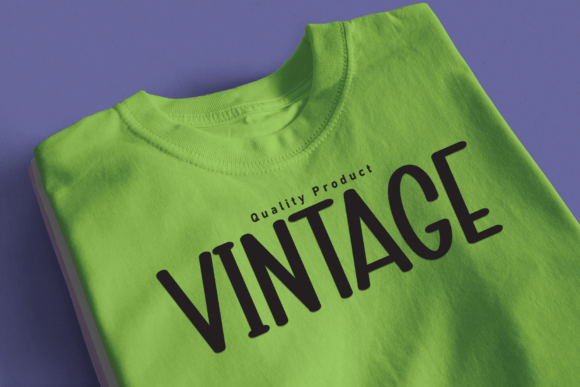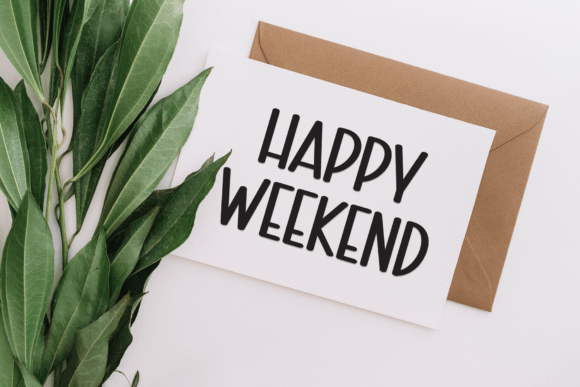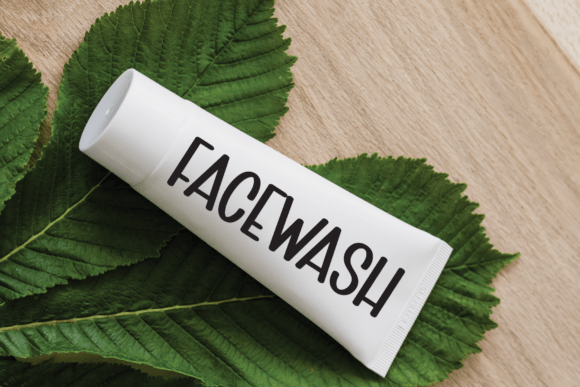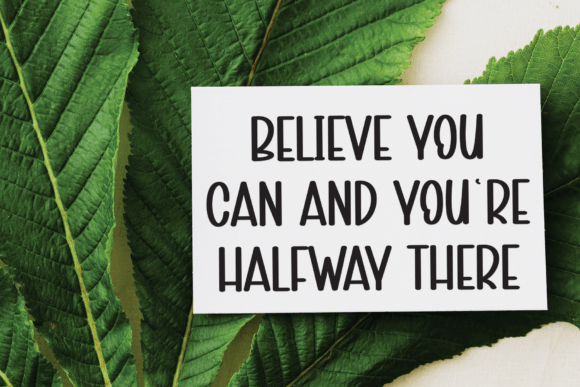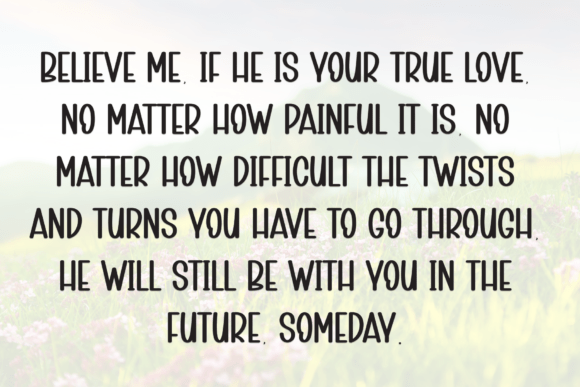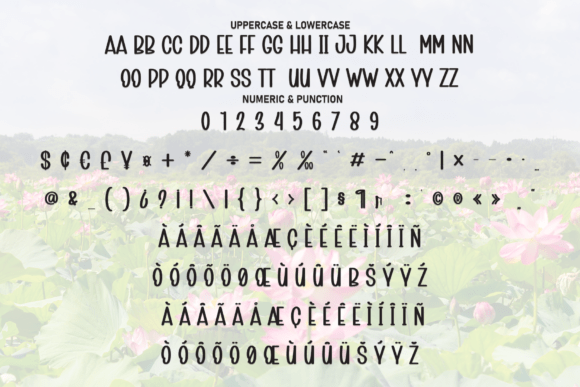
Discover the Beauty of Lotus Garden Font
As a designer, there’s nothing quite like the thrill of creating something from scratch. The blank canvas, the endless possibilities, the rush of bringing a concept to life. For me, that moment comes when I’m working on a new project and I need the perfect font to bring it all together. It’s in those moments that I’m reminded of the importance of having a reliable design resource – a font that’s not only visually appealing but also easy to read and work with. That’s where the Lotus Garden Font comes in, a stunning display font that’s perfect for adding a touch of warmth and clarity to your creative projects.
With its clean structure and approachable style, the Lotus Garden Font is an ideal choice for designers looking to add a high-quality, free download to their design arsenal. Whether you’re working on a branding project or need a font for everyday designs, this beautiful font is sure to impress. Plus, with its transparent background, you can easily layer it over images or use it as a standalone element – the possibilities are endless!
Key Features of Lotus Garden Font
- Unique, hand-drawn design ideal for creative projects and artistic expressions
- High-quality font with a transparent background, perfect for use on various design resources
- Comes in a single weight, making it easy to use in various design contexts
- Perfect for designers and artists looking for a distinctive, elegant font for their creative projects
Honest Review: Lotus Garden Font
I recently had the chance to work with the Lotus Garden Font, and I must say it’s been a delightful experience. As a designer, I’m always on the lookout for high-quality design resources that can elevate my creative projects. This font definitely fits the bill.
Here are some of the things that work well: ✨
- Beautiful and intricate designs that add a touch of elegance to any project
- High-quality and crisp characters that render well on both screen and print
- Transparency options available, making it easy to use on both colored and transparent backgrounds
That being said, there are a few limitations to keep in mind: ⚠️
- Limited language support (available for a few languages only)
- No bold or italic variations available (although this might not be a deal-breaker for some designers)
Overall, I’m really impressed with the Lotus Garden Font. It’s a great addition to any designer’s toolkit, and I would definitely recommend it for creative projects where a touch of elegance is needed. With its high-quality design and transparent background options, it’s a versatile font that can be used in a variety of contexts.
Tips for Getting the Most Out of Lotus Garden Font
Experiment with different font sizes and colors to create visual interest. Use the font in combination with other design elements, such as images and shapes, to create a cohesive and high-quality design.
The Lotus Garden Font is ideal for various creative projects, including wedding invitations, business cards, and social media graphics. Its high-quality design and transparent background make it a versatile design resource for any project.